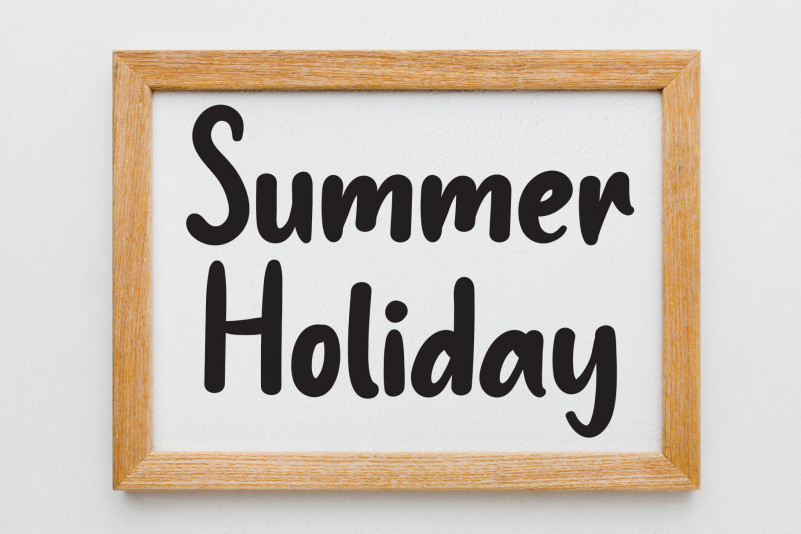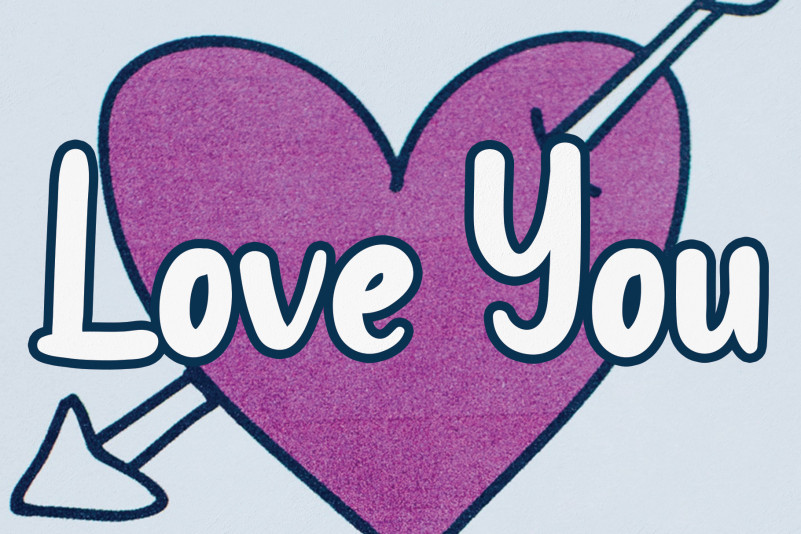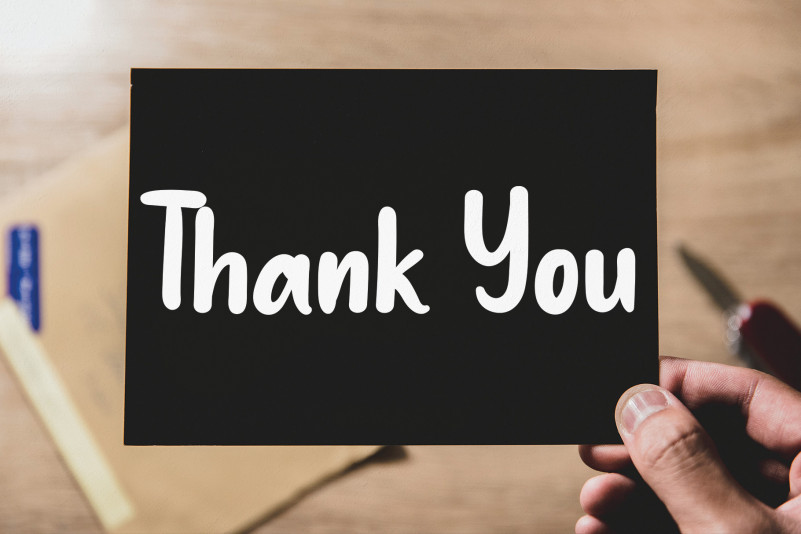
Florida Island Display Font
Florida Island Display Font is a fun and chunky lettered display font. It is suitable for any branding, product packaging, invitation, quote, t-shirt, label, poster, logo that you wish to create.